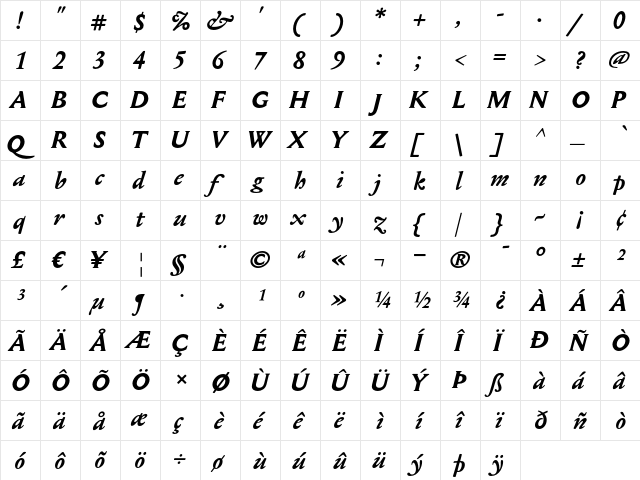
Mediaeval Bold Italic
Design Context for Mediaeval Typeface
Mediaeval offers clean, dependable letterforms without strong stylistic allegiance, making it a practical choice for designers who need flexibility. Its italic angle brings a sense of urgency and motion to the letterforms. Its bold stroke weight gives it real presence on the page.
Pro Tip: Use Mediaeval for emphasis, pull quotes, and subheadings where its slanted energy can add rhythm to the layout.